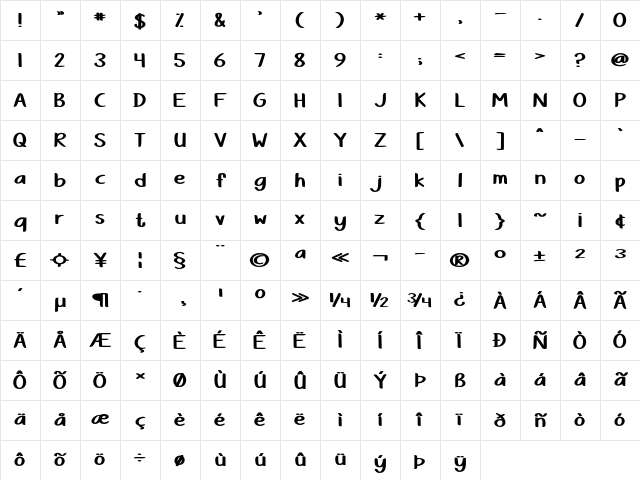
School Path Expanded Bold
Style: Expanded Bold
School Path Family
School Path Expanded Bold
Design Context for School Path
School Path is a composed and adaptable typeface that performs quietly and consistently across a wide range of design contexts. Its bold stroke weight gives it real presence on the page.